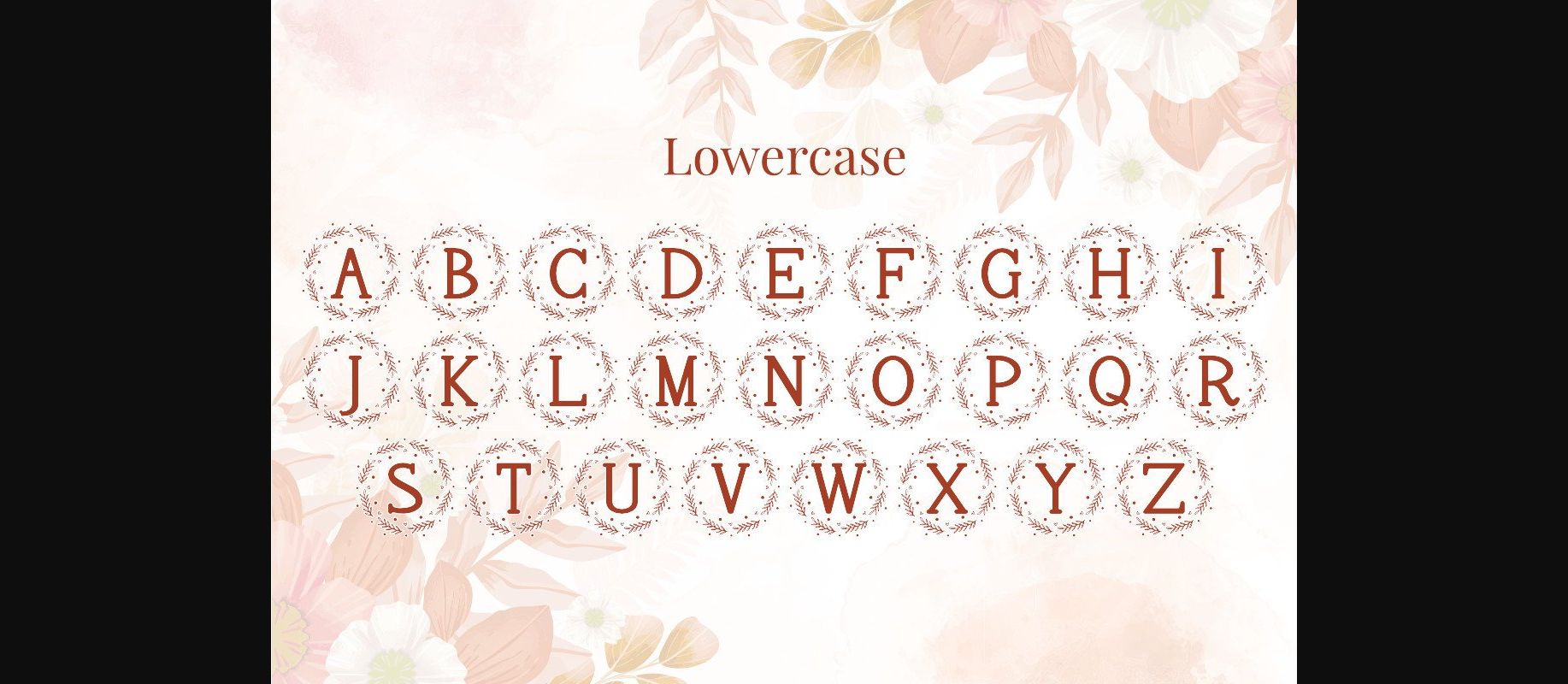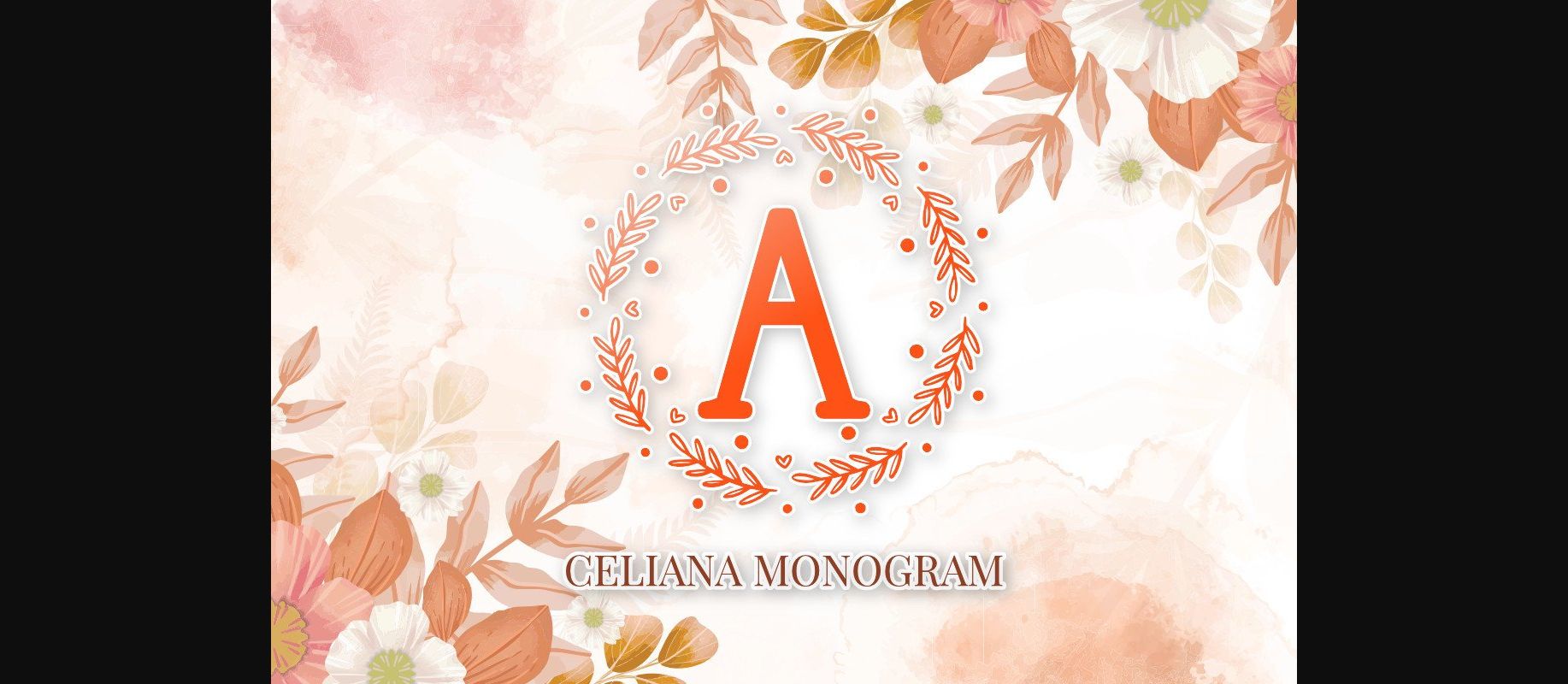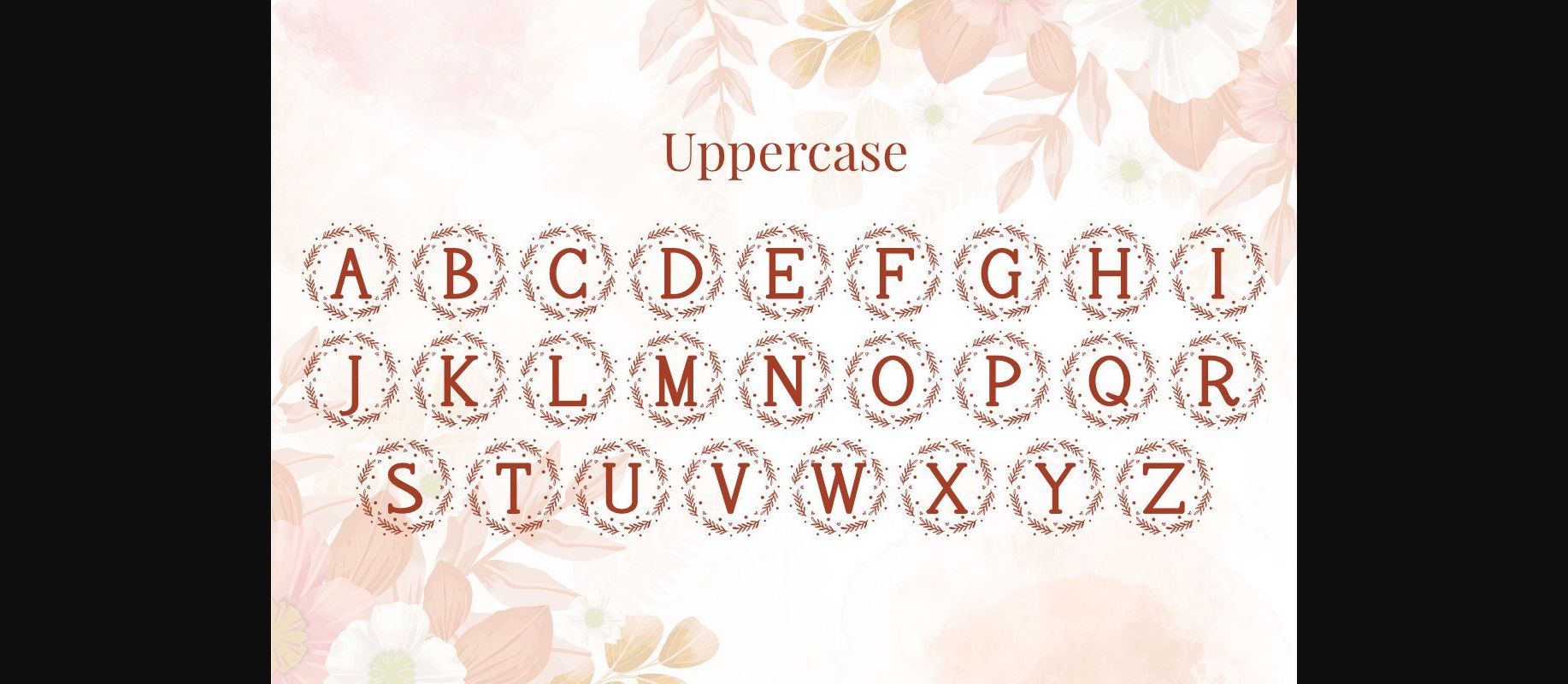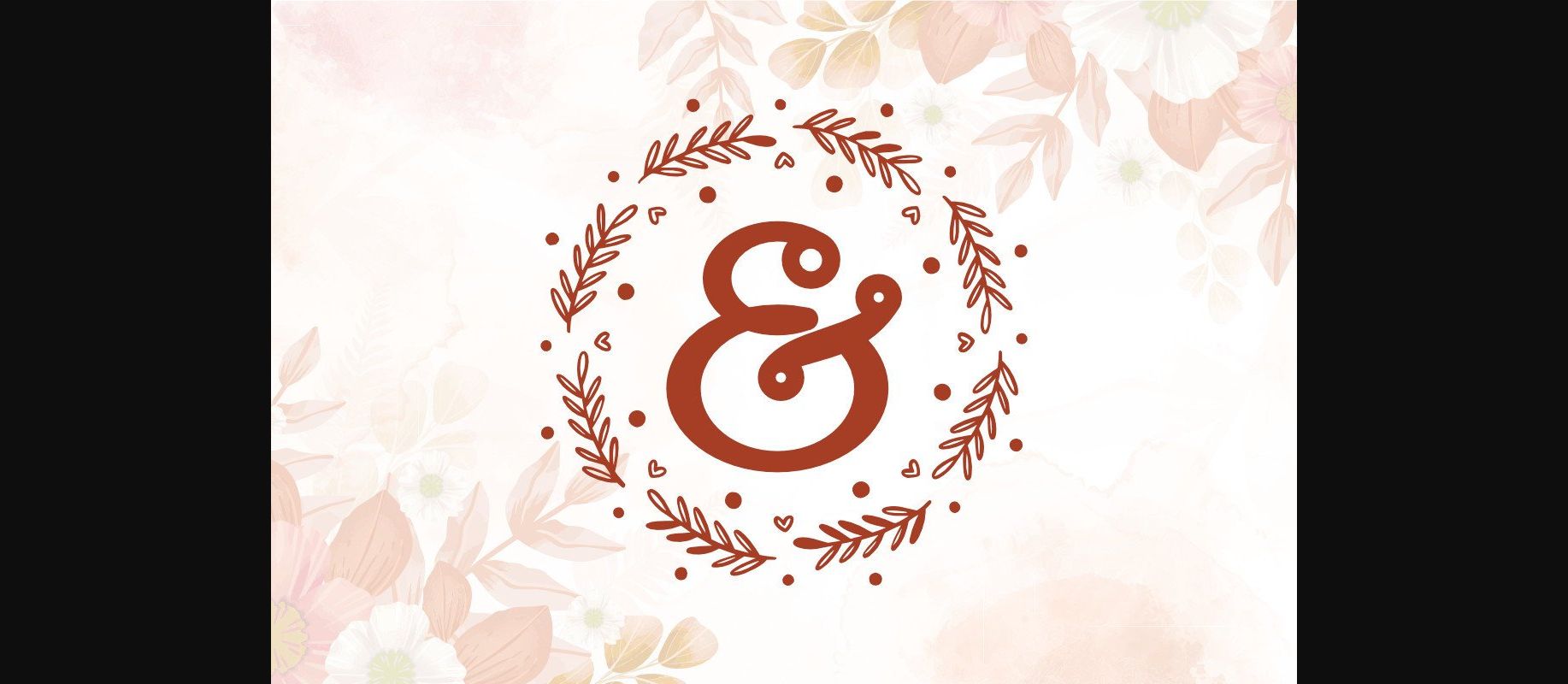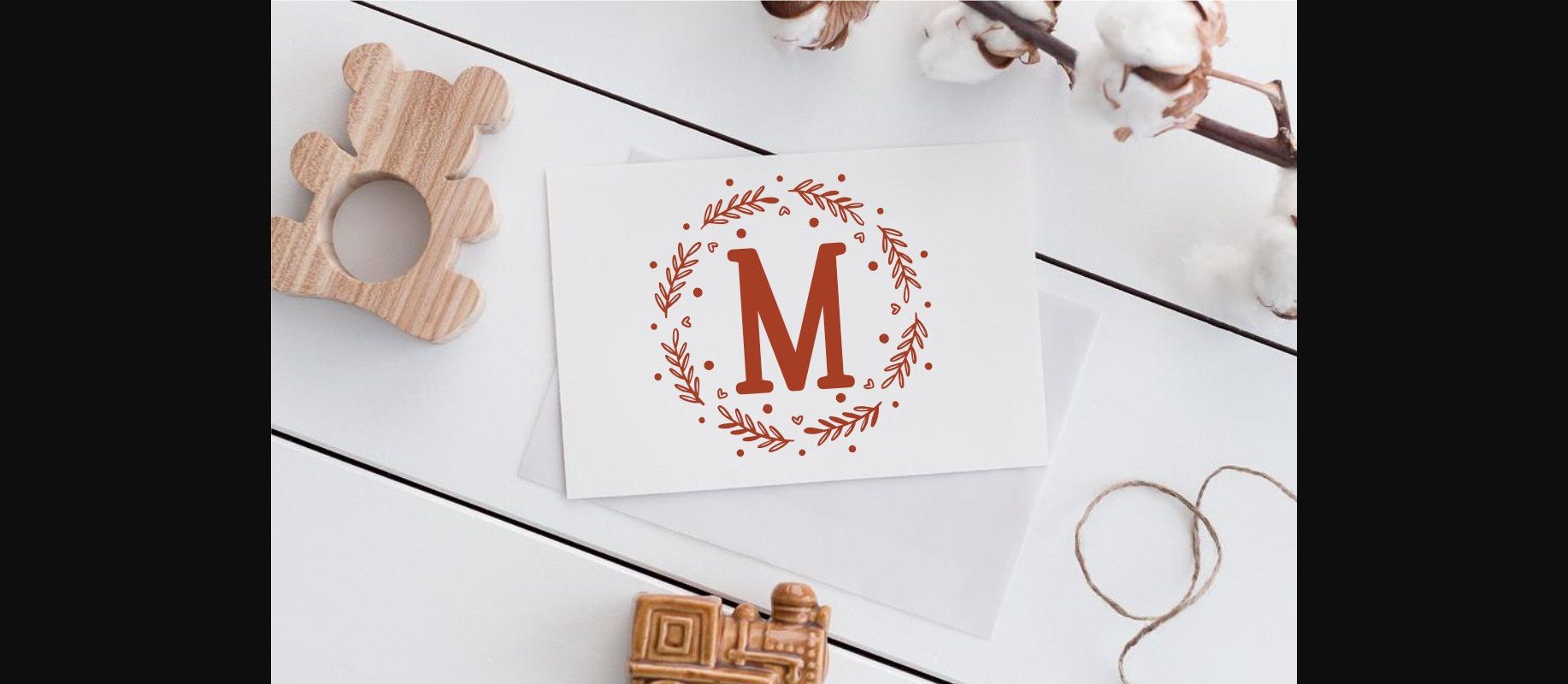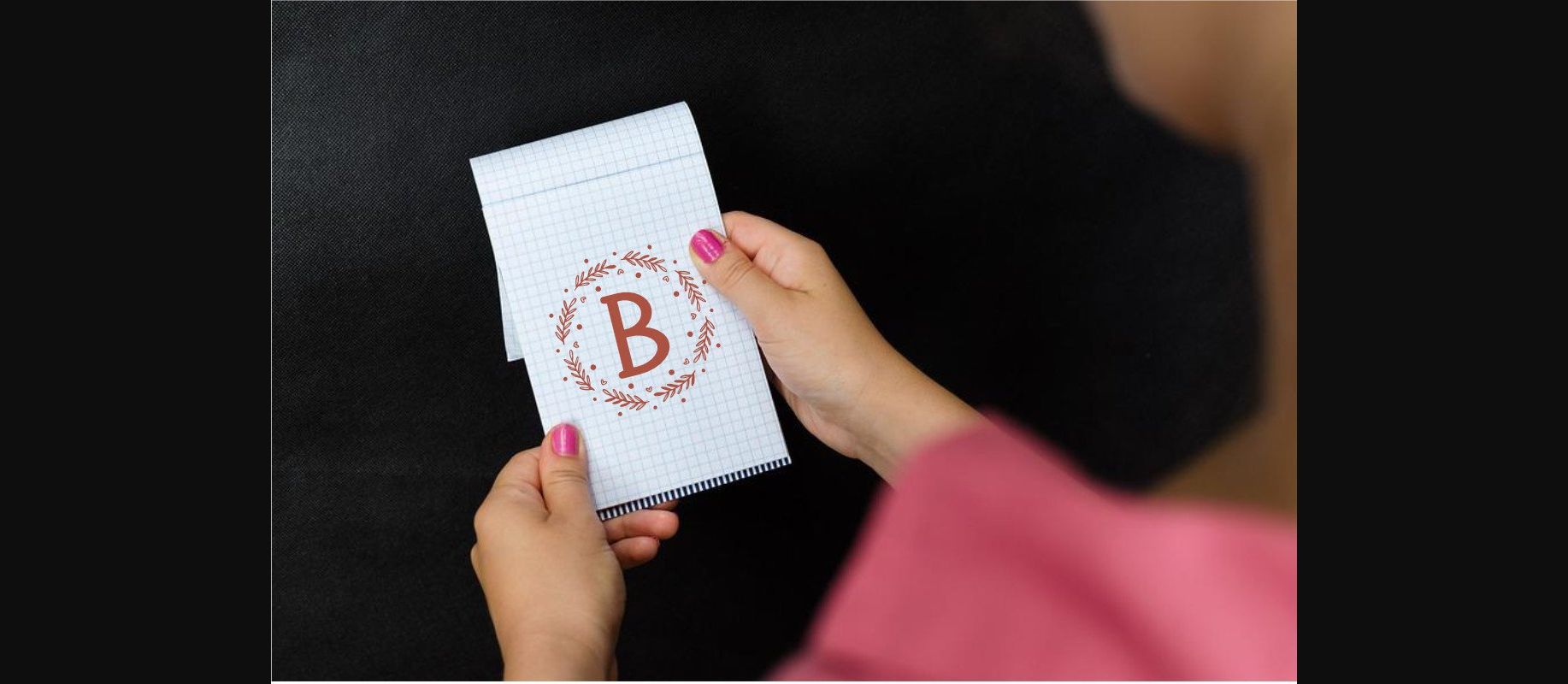
Celiana is a cute decorative font, featuring beautiful flower monograms. Get inspired by its authentic feel and use it to create gorgeous wedding invitations, eye-catching social media posts etc